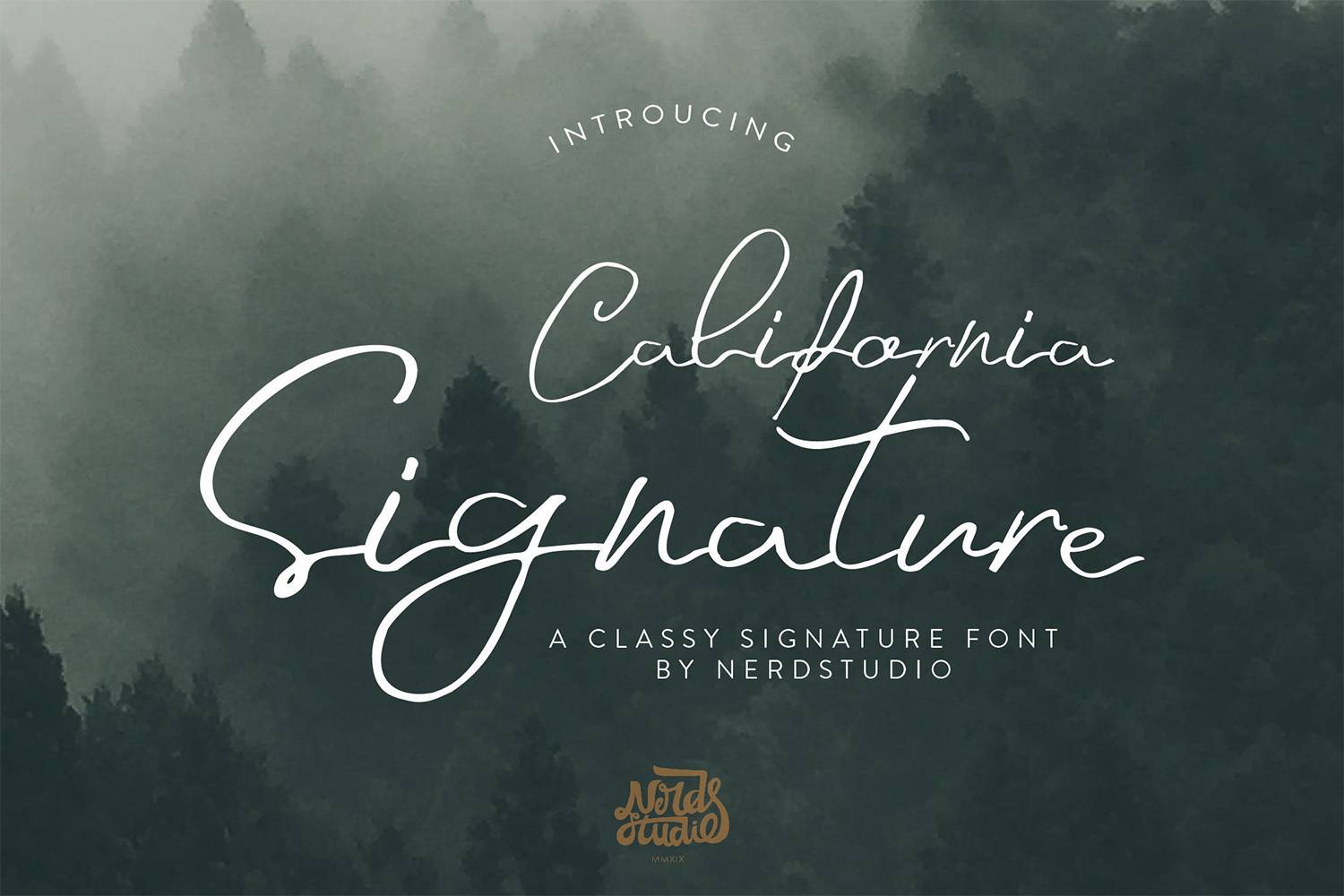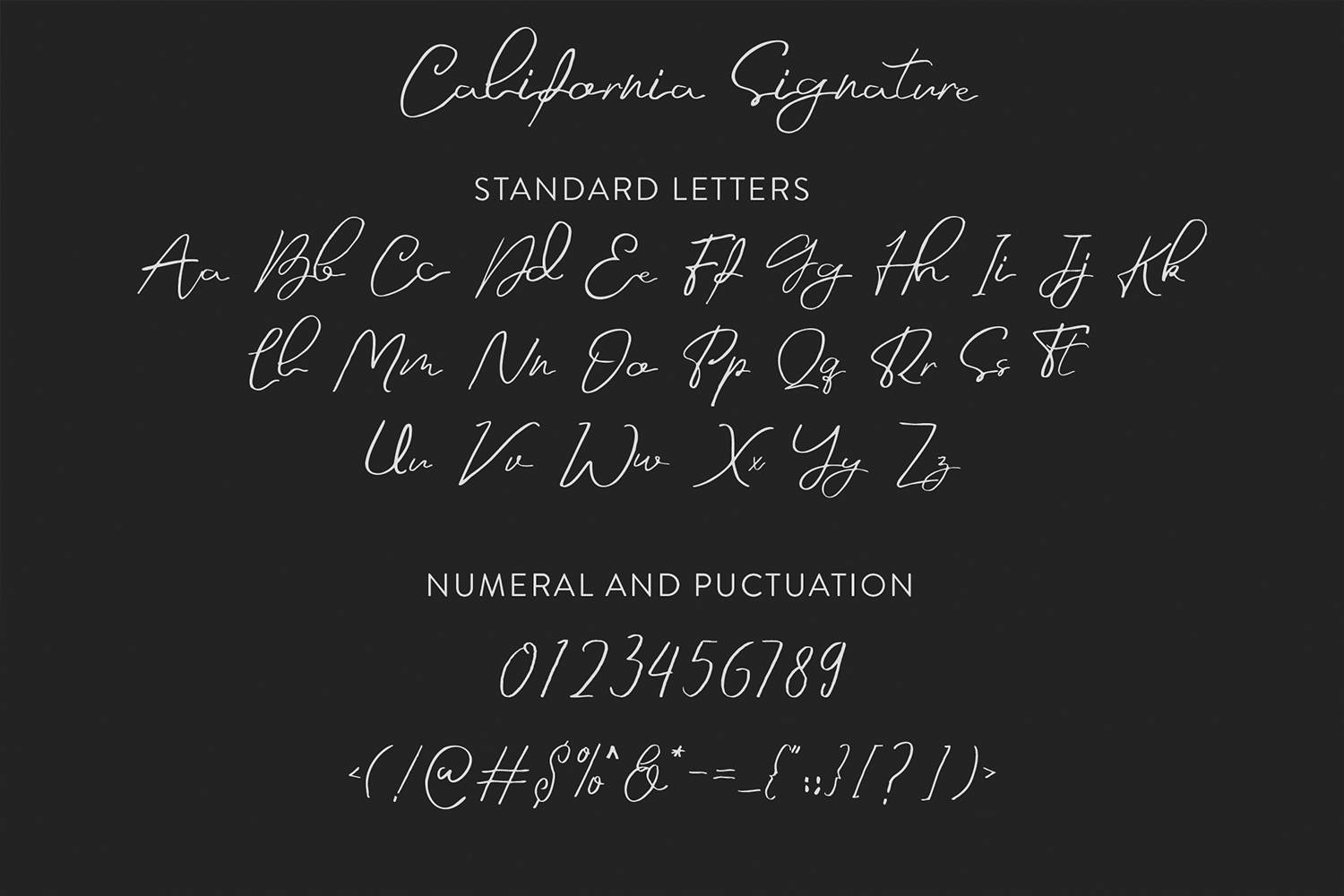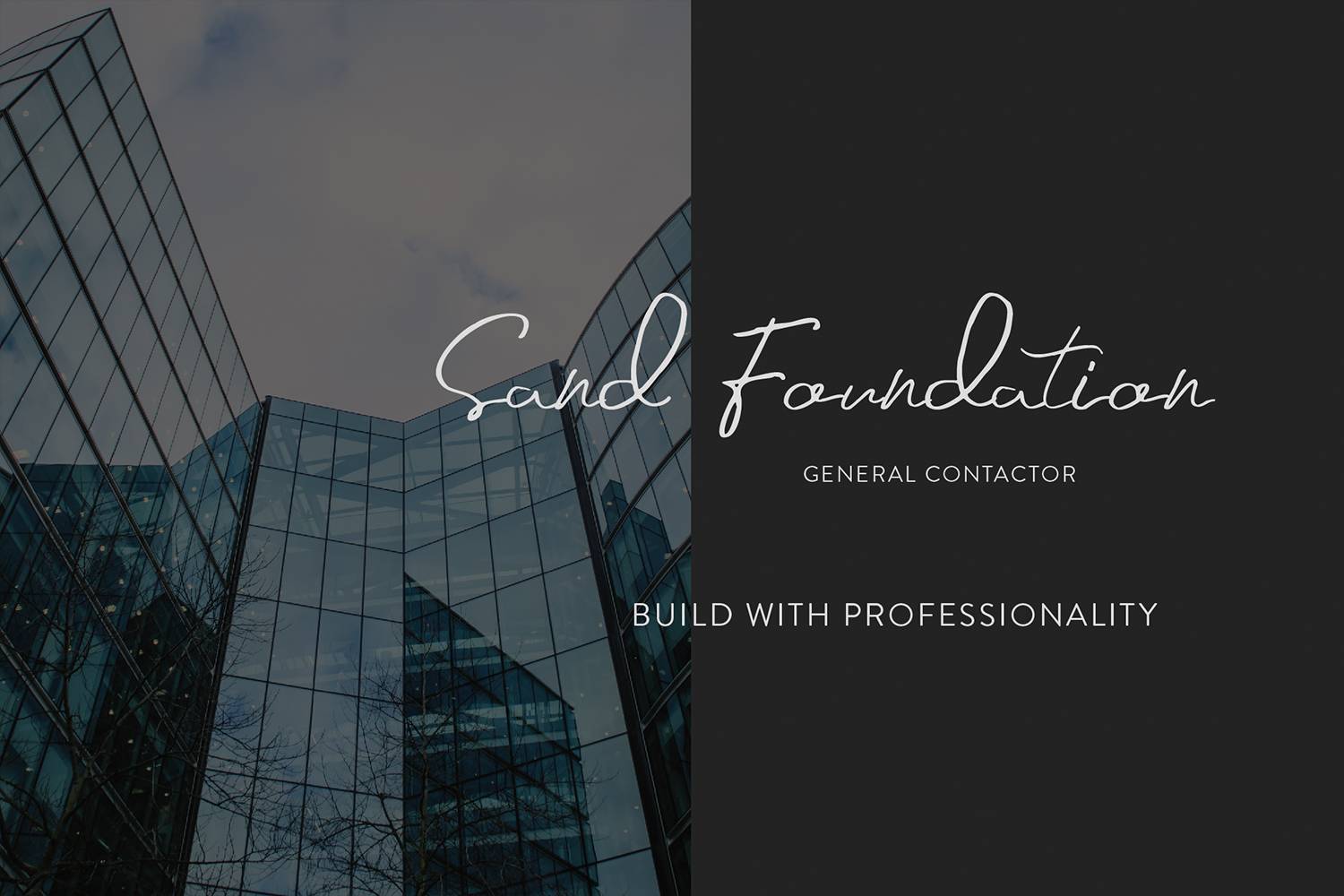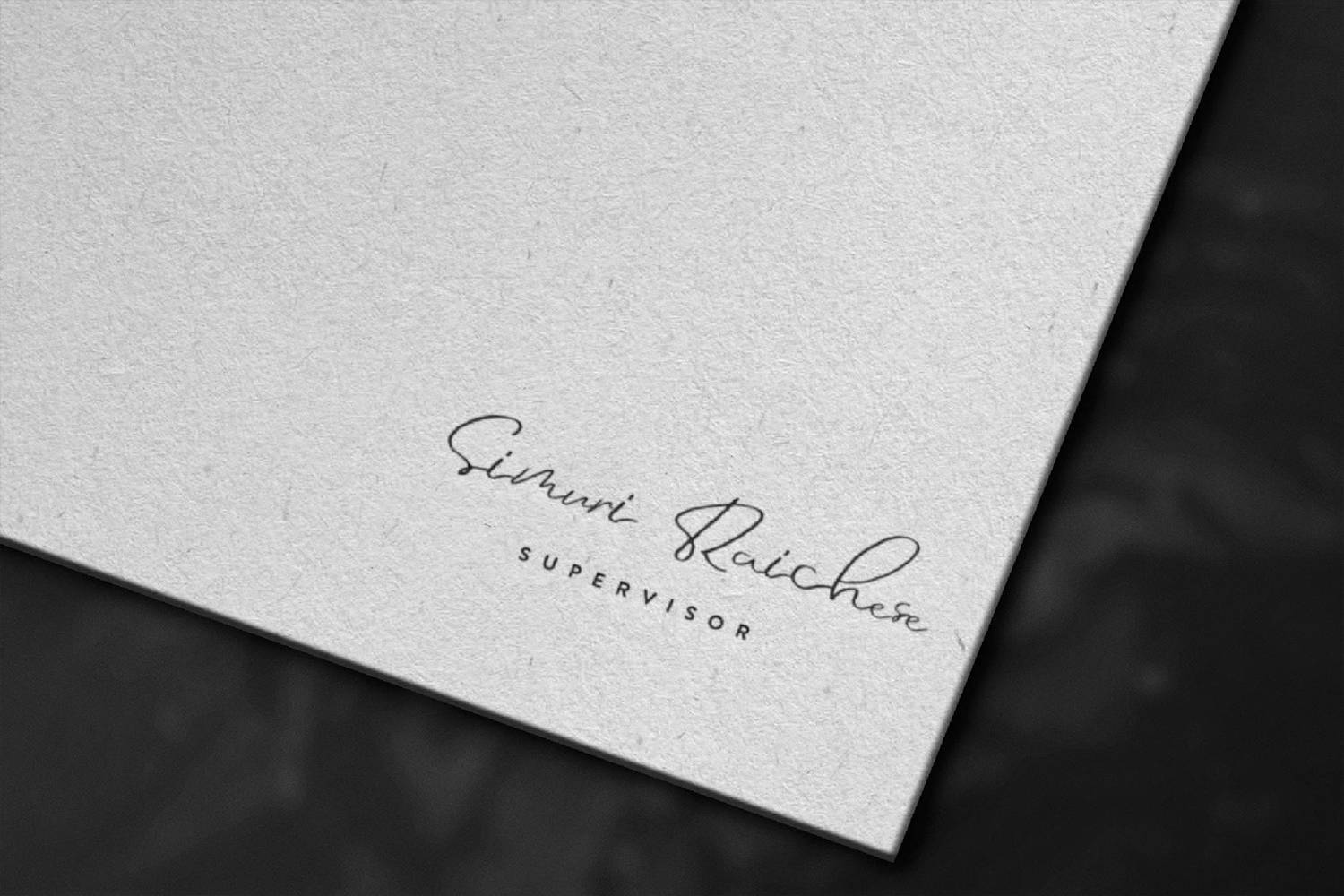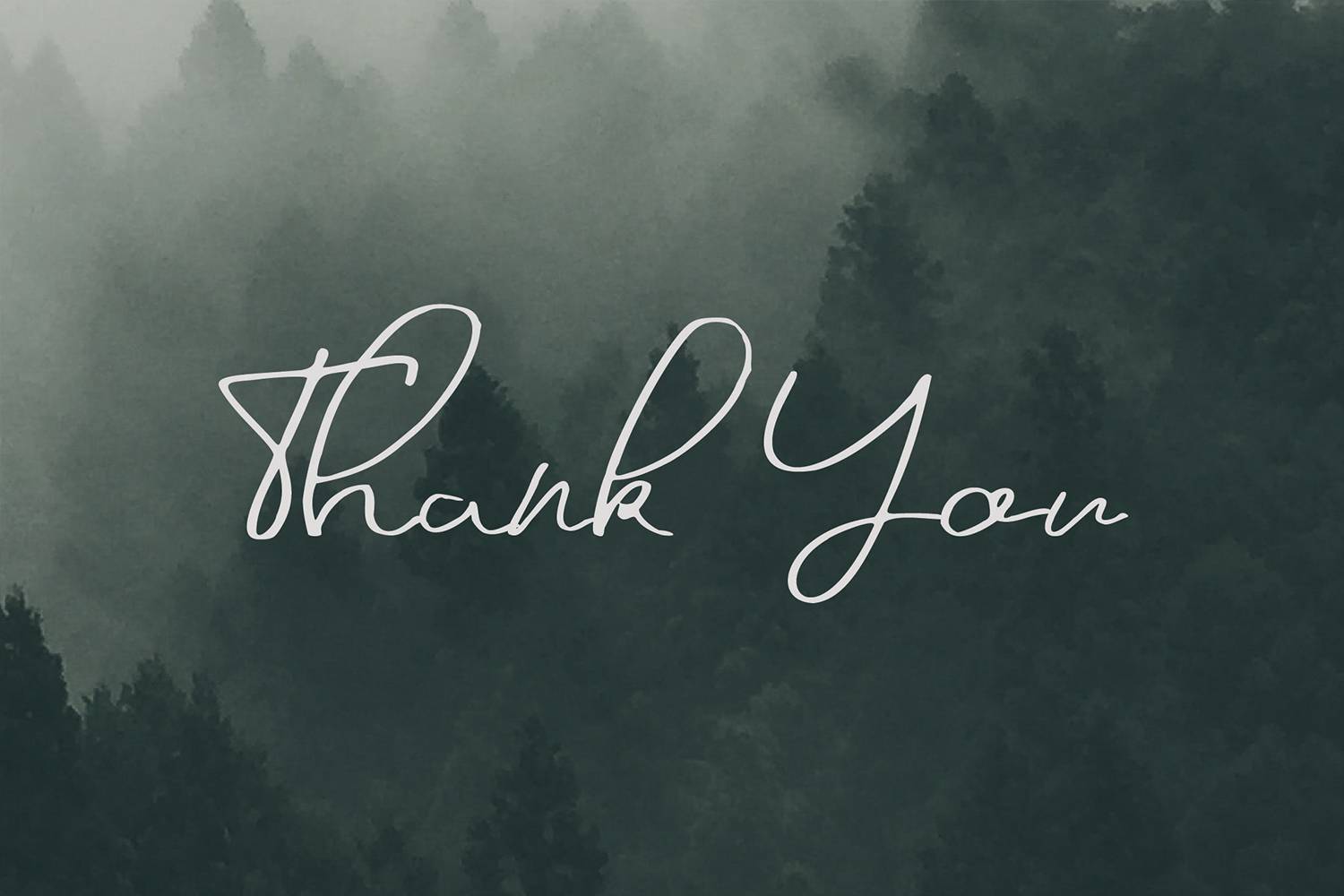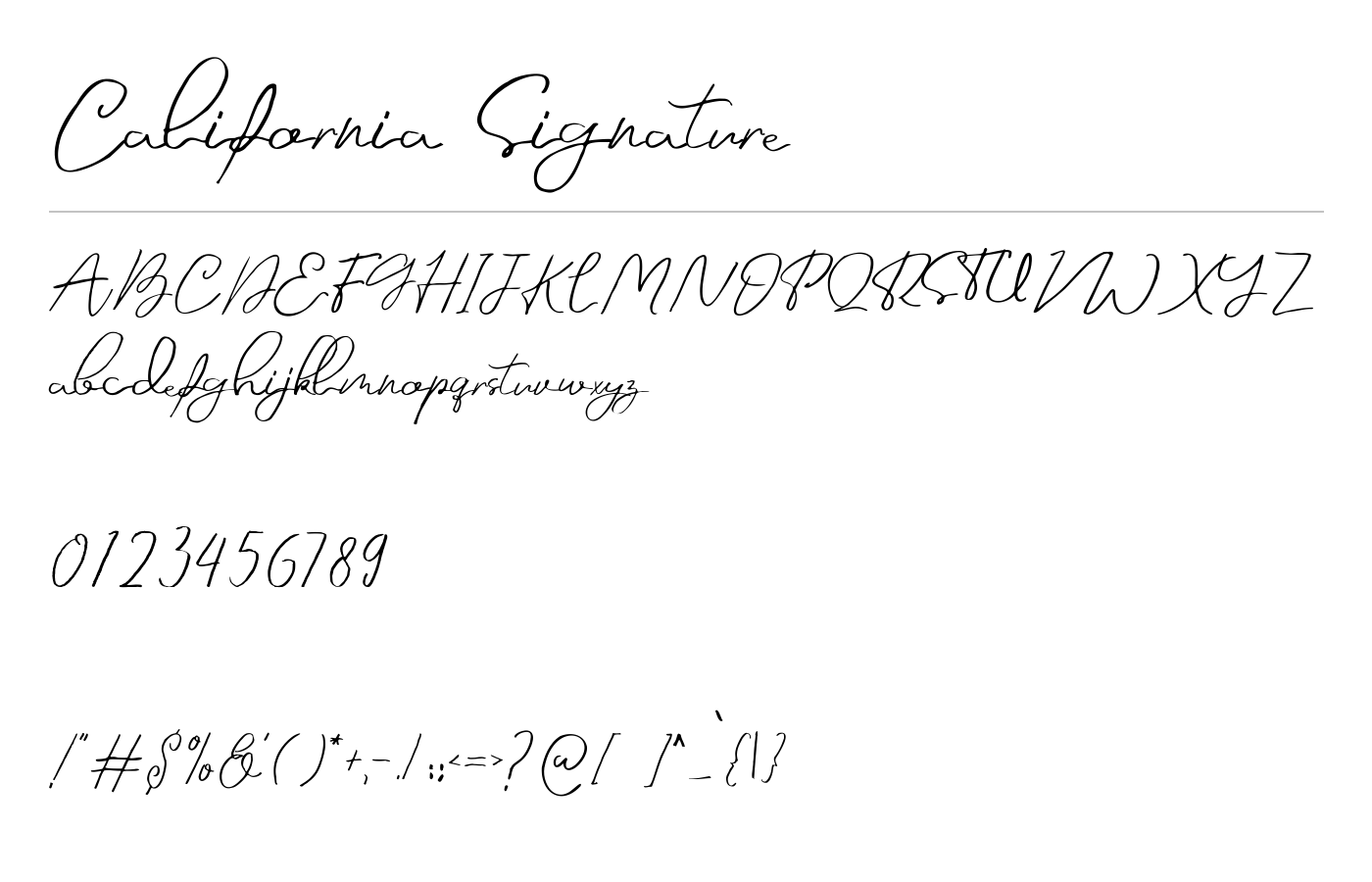
California Signature Font is a delicate, elegant script with a handwritten, personal feel that mimics authentic cursive handwriting. Its thin strokes and flowing connections give it a light, airy appearance, making it ideal for invitations, branding, and design projects that seek a sophisticated yet approachable touch. This font works beautifully in logos, headlines, and editorial uses where a refined, intimate atmosphere is desired.
California Signature Font
About California Signature Font
| Font family | California Signature Font |